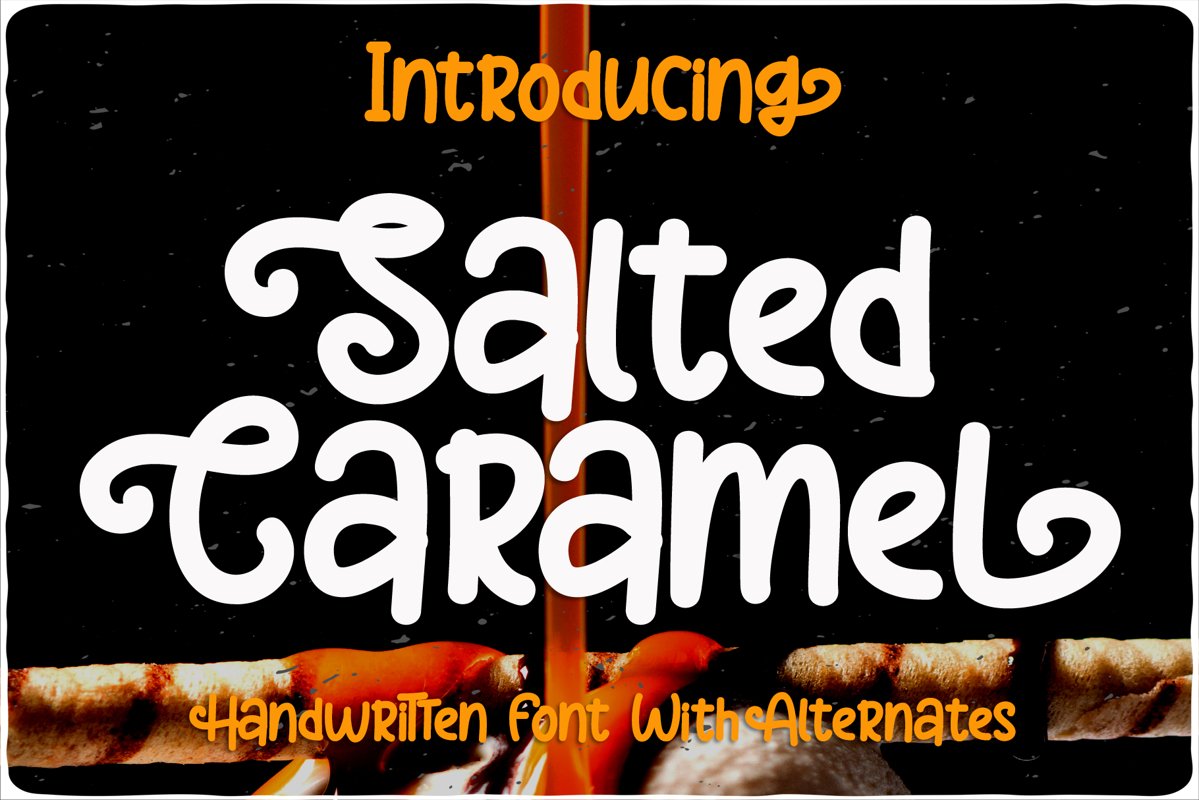
Introducing, Salted Caramel. Amazing hand lettering look attractive and natural! Every single letters have been carefully crafted to make your text looks beautiful. This font is suitable for invitation, branding, advertising, classic design, poster design etc. Font is PUA encoded so you can access extras from character map in most design software.
Ligature Character
Alternate Character